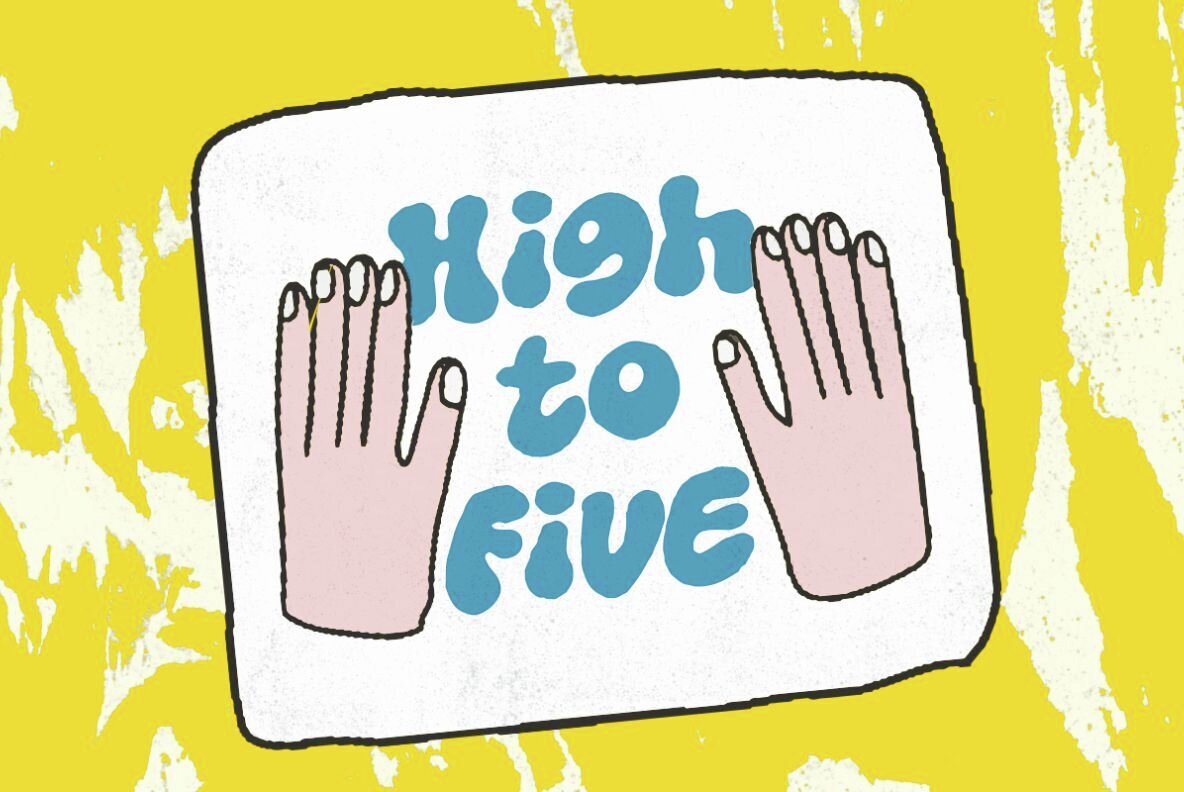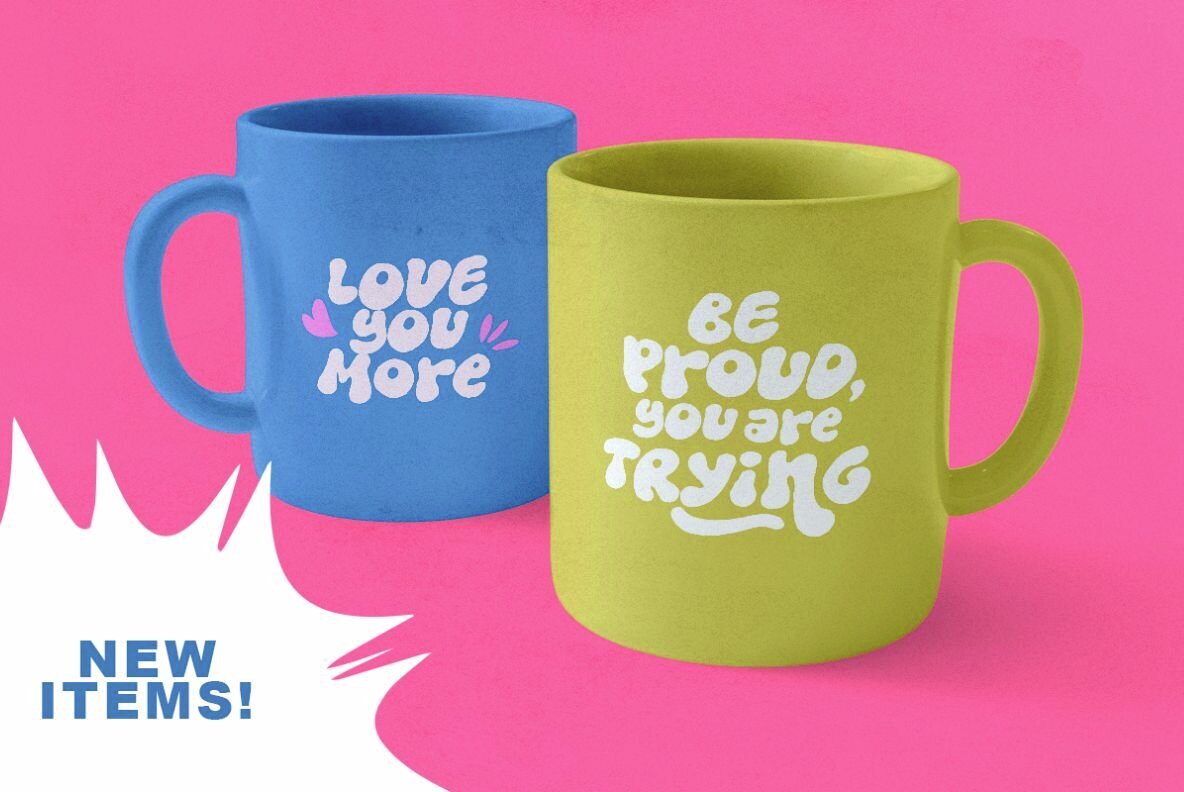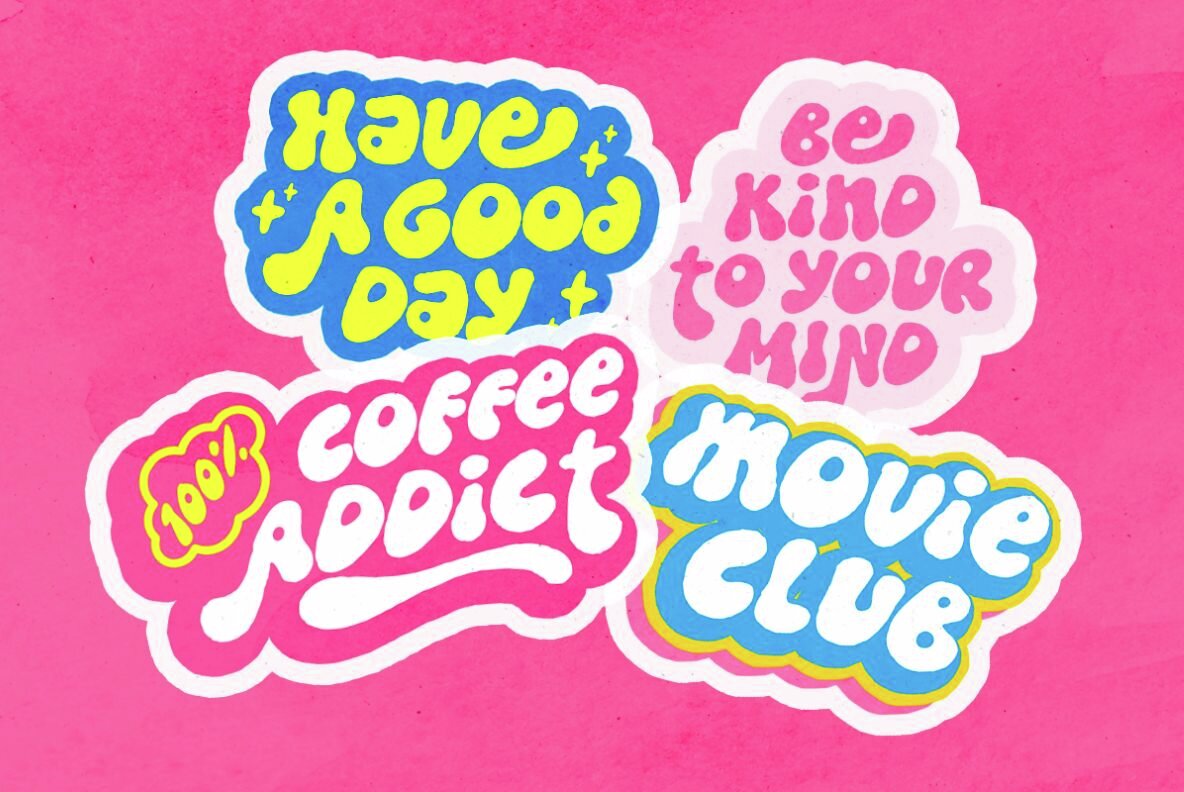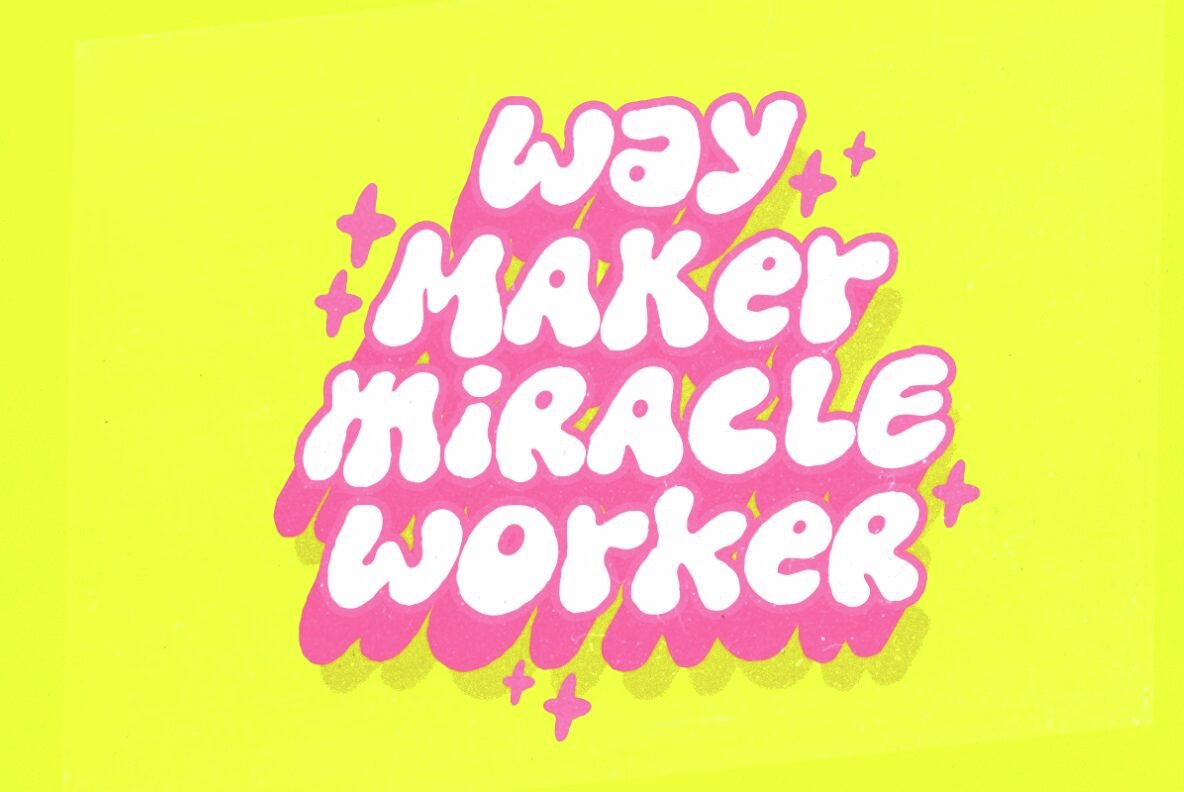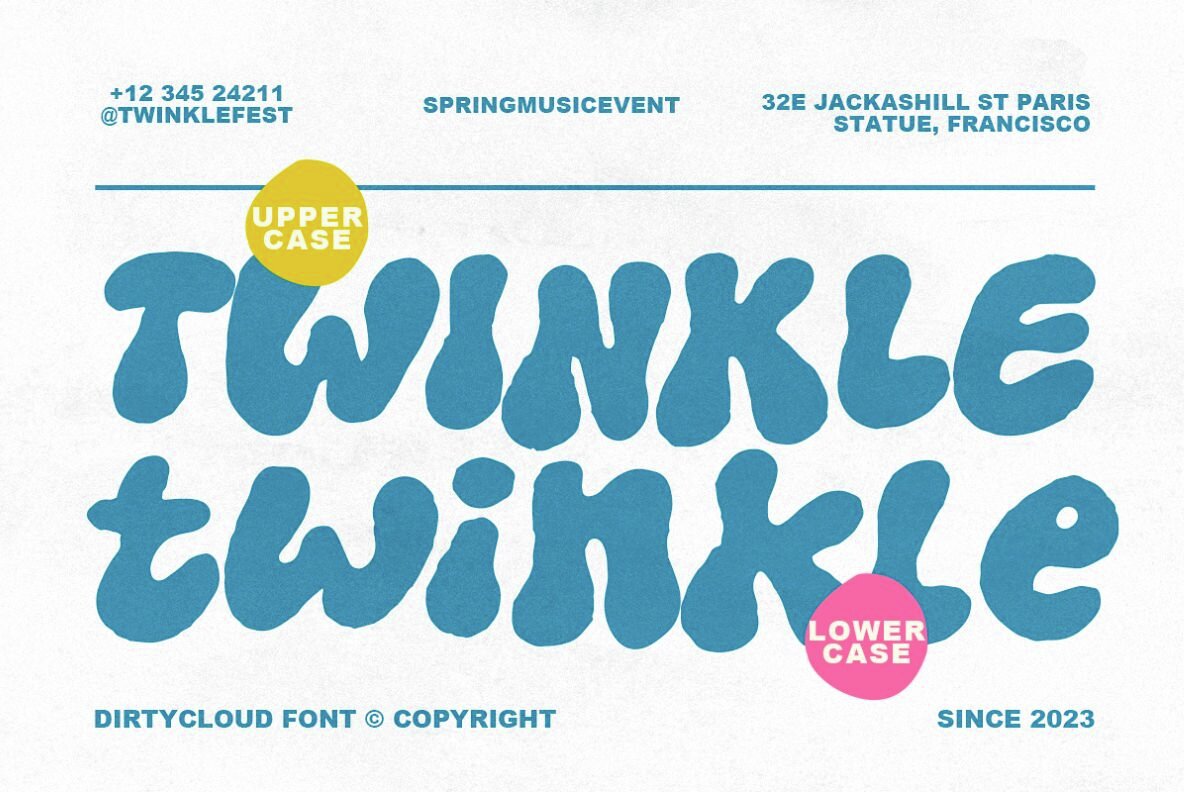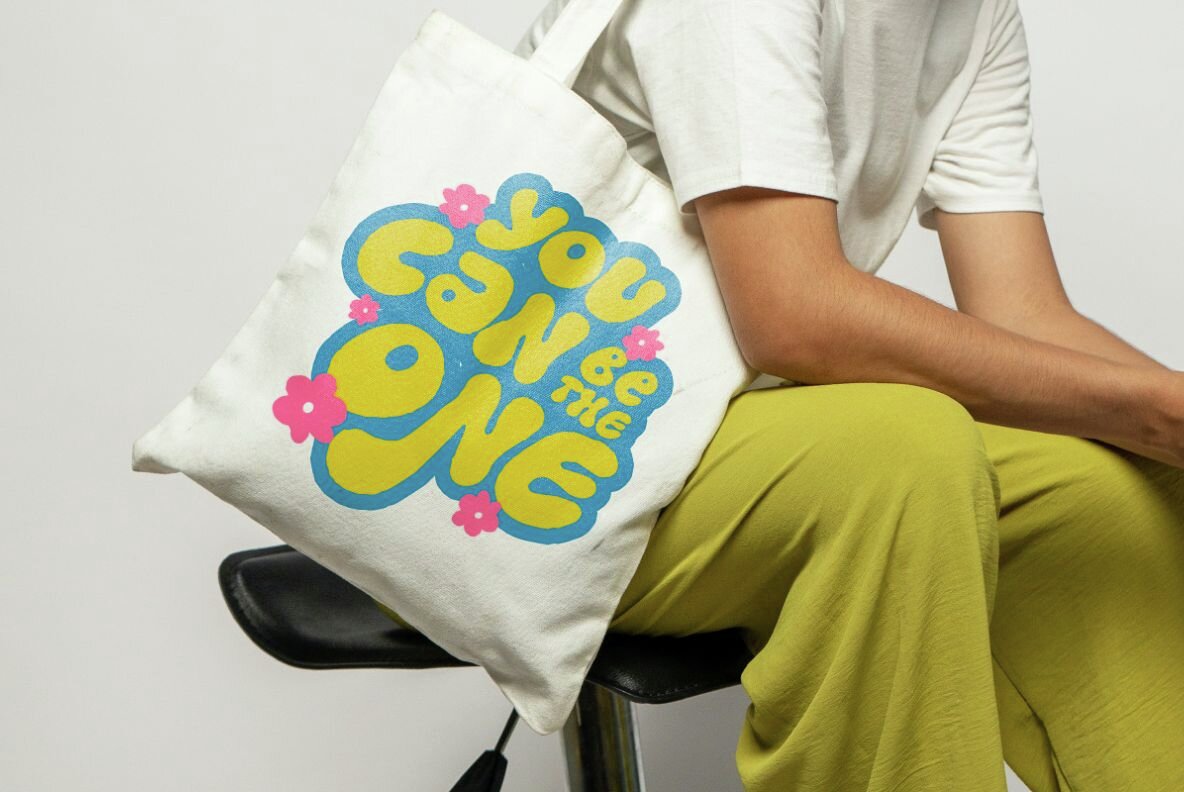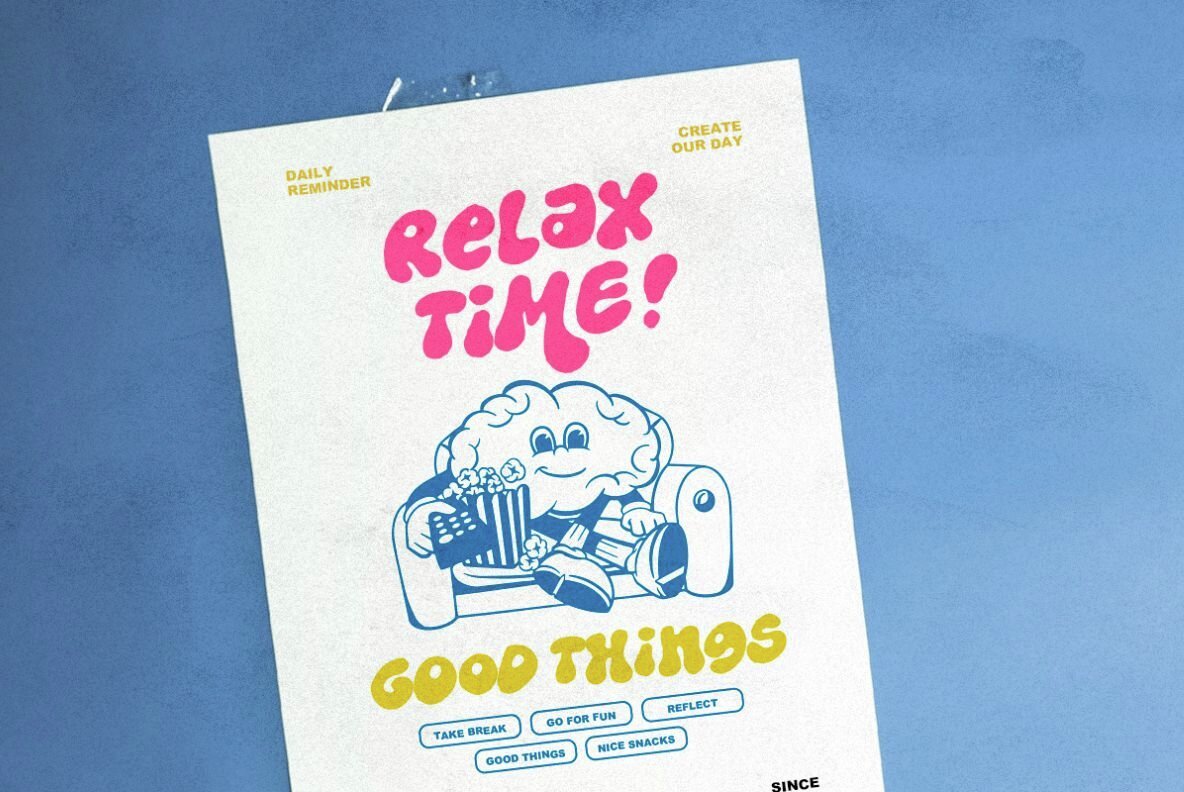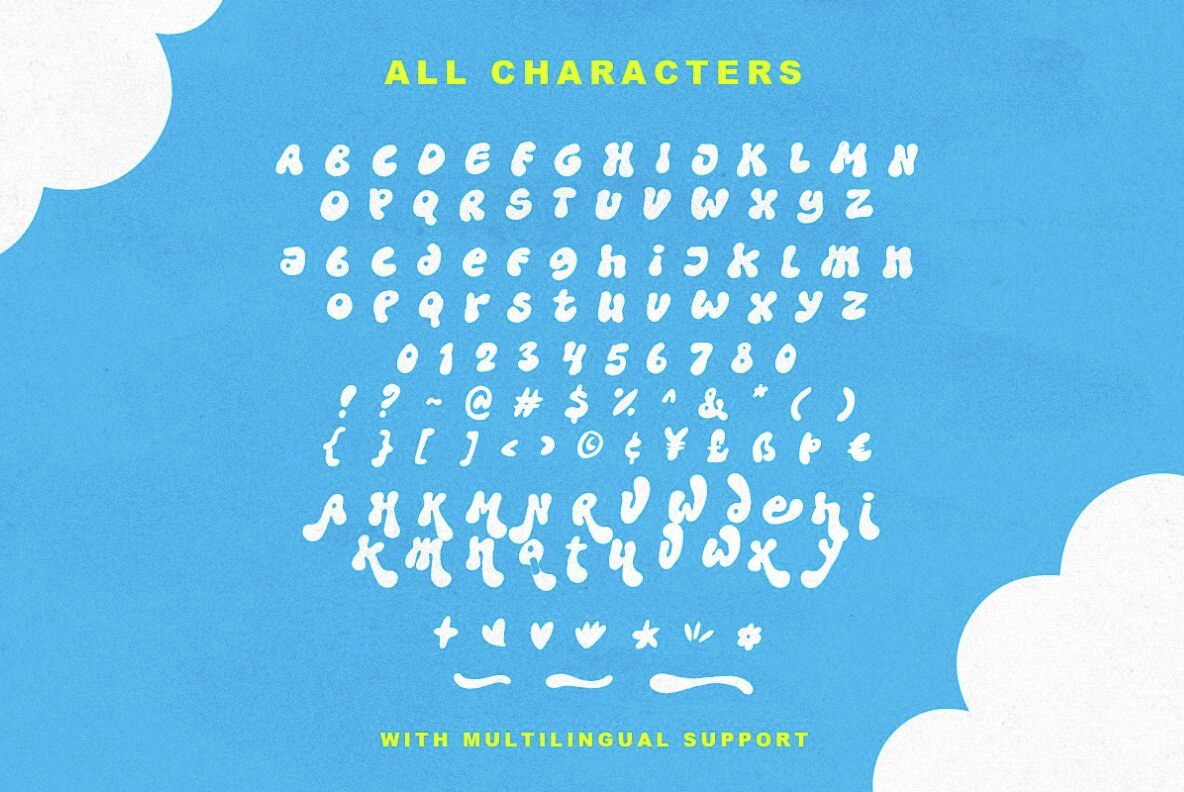
Dirty Clouds Font
Dirty Clouds Regular
Introducing a playful yet edgy hand-drawn bubble font designed to add a distinctive touch to your creative projects. With its rough edges and organic appearance, this font is perfect for capturing attention while maintaining a humanistic feel. Ideal for a variety of uses, such as posters, stickers, and quotes, its versatility extends to branding materials as well. The complementary lowercase and uppercase letters can be combined to create an authentic handmade look in any design.
This font comes with a range of exciting features, including numerous alternates to enhance your creativity. You'll also find included icons and underlines, easily accessible from your design software's glyphs panel. Additionally, this font supports multiple languages, enabling you to reach a broader audience with your message. Whether crafting a bold poster or a unique brand identity, this font delivers both style and functionality without compromising on originality.